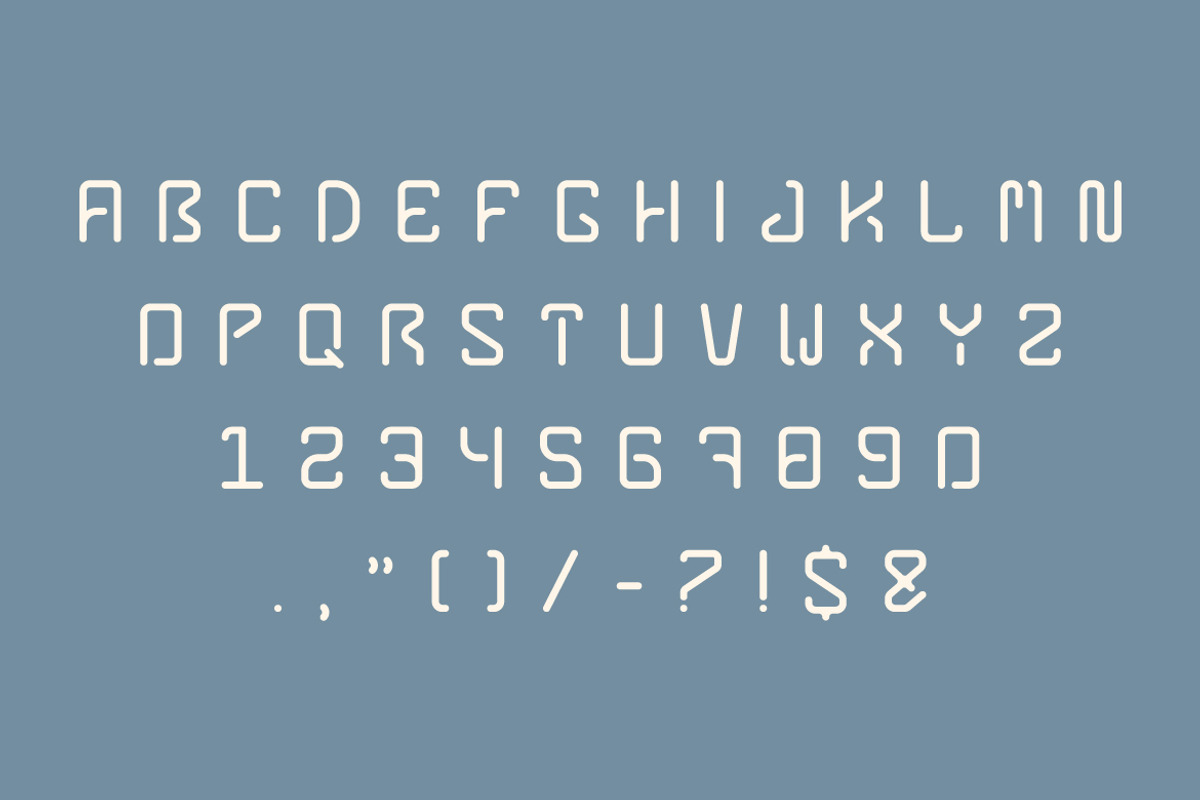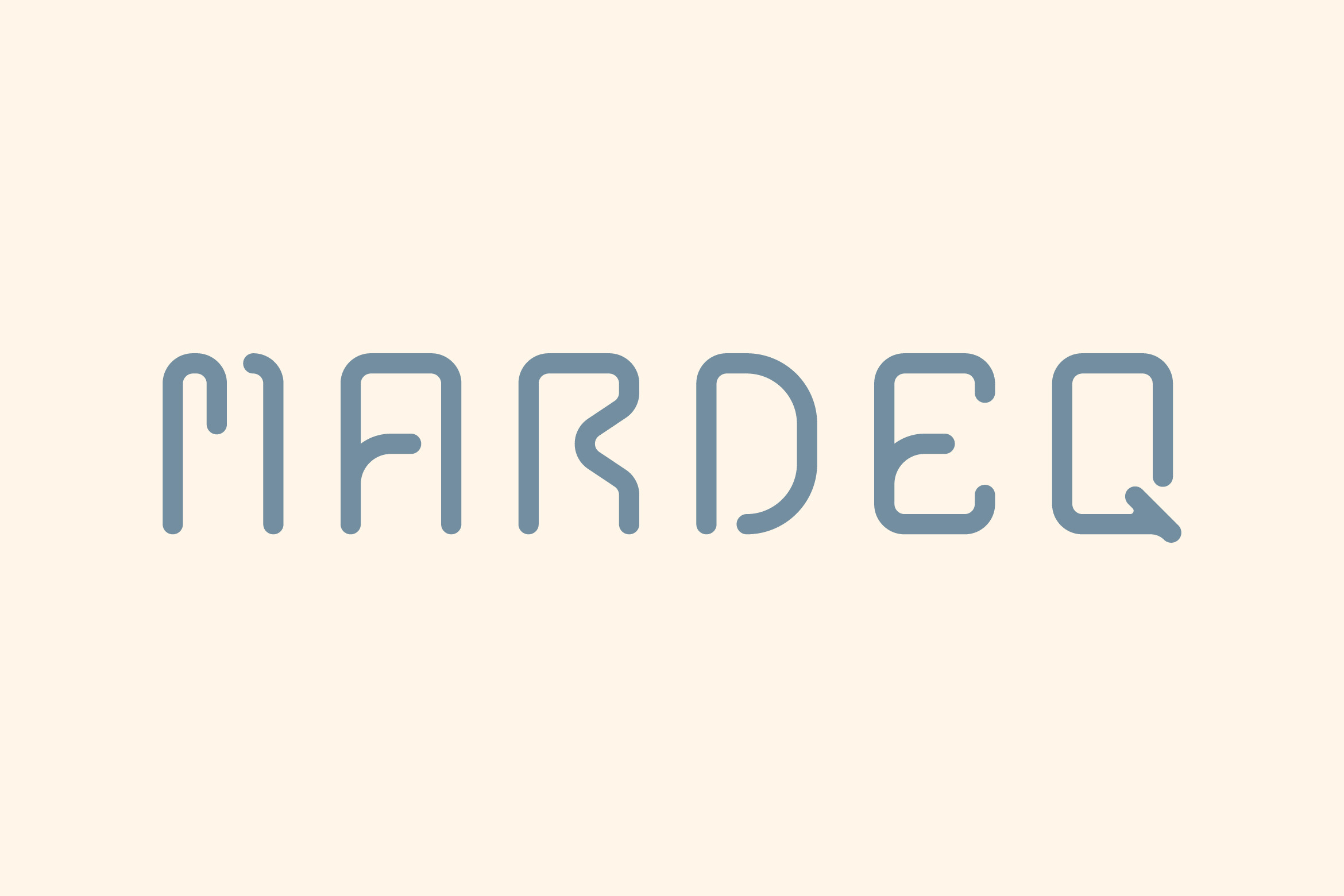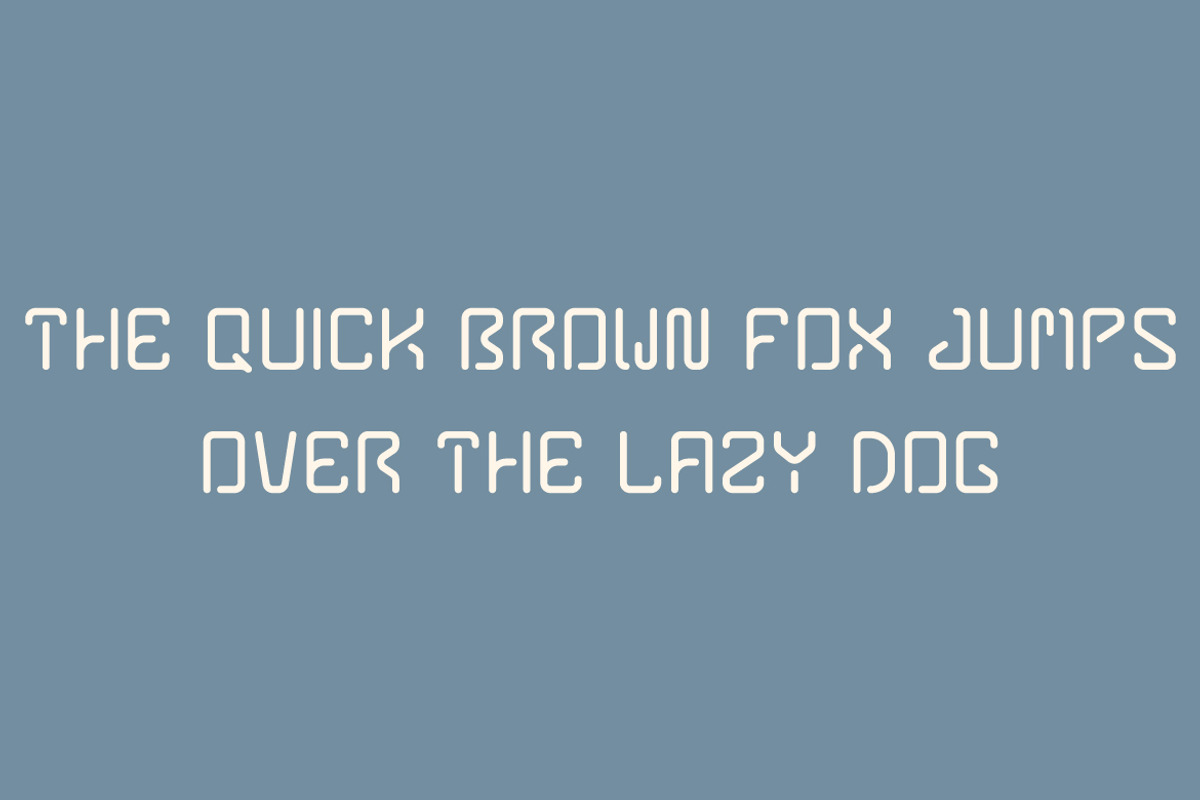
Mardeq -Technology Font
Mardeq is a sleek and futuristic technology font designed for innovation and modern digital aesthetics. With its sharp edges and high-tech feel, it’s perfect for tech branding, sci-fi projects, gaming, UI/UX design, and cyber-inspired visuals. Elevate your designs with the advanced and cutting-edge style of Mardeq!